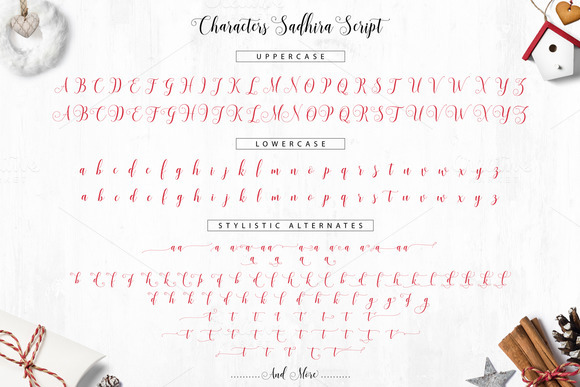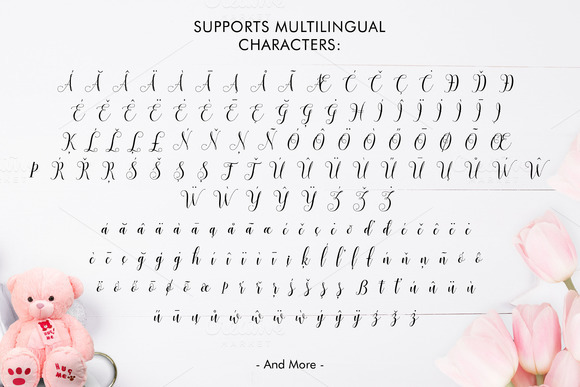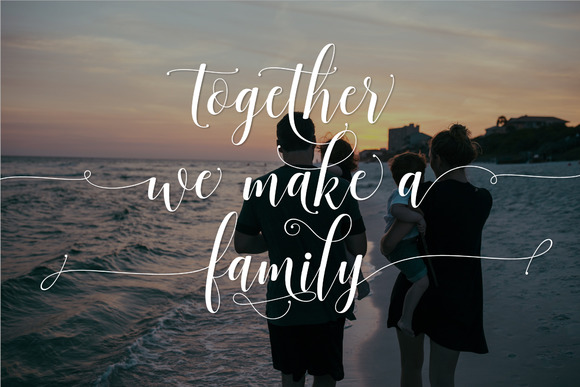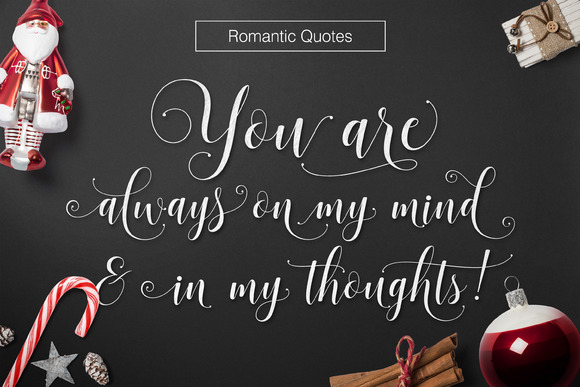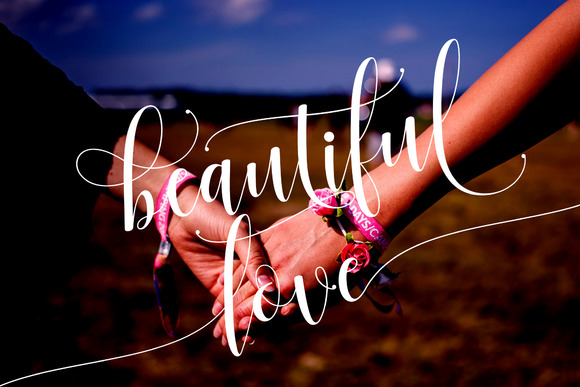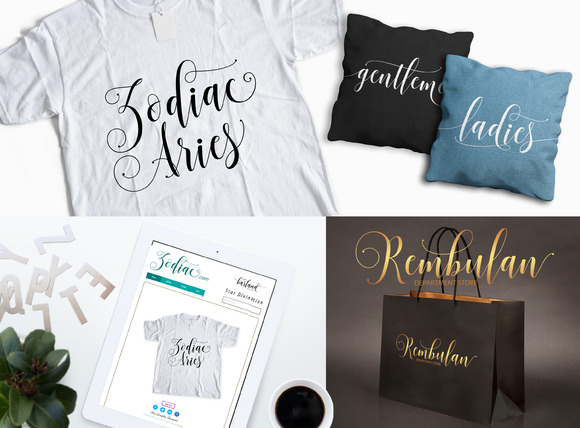
Introduction to Sadhira Script Font
Imagine you’re working on a creative project, pouring your heart and soul into it, and then you stumble upon the perfect font to bring it all together. For designers, this moment is pure magic. It’s the moment when all the hard work and hours of brainstorming pay off, and the design starts to come alive. And that’s exactly what the Sadhira Script Font offers – a chance to elevate your design to the next level.
As a valuable design resource, the Sadhira Script Font is a game-changer for any creative project. With its high quality and unique details, it’s perfect for adding a touch of elegance and sophistication to your work. Whether you’re working on a branding project, a wedding invitation, or a social media campaign, this font is sure to impress.
So, what makes the Sadhira Script Font so special? With almost 1000 unique glyphs and 7 alternative fonts to mix and match, the possibilities are endless. And with its PUA encoded feature, you can easily use it with a transparent background to add an extra layer of depth to your design. Best of all, it’s available for a free download, making it an accessible resource for designers of all levels.
Key Features of Sadhira Script Font
- High-quality, elegant script font perfect for creative projects and design resources.
- Includes a range of ligatures and swashes, adding a touch of sophistication to any text-based design.
- Designed to be highly versatile, making it suitable for a variety of design projects, from wedding invitations to branding materials.
Honest Review: Sadhira Script Font
As a designer, I’m always on the lookout for high-quality design resources to enhance my creative projects. Recently, I had the chance to work with the Sadhira Script Font, and I’m excited to share my honest review with you.
- Elegant and sophisticated feel that’s perfect for luxury branding and high-end projects.
- High-quality design that’s suitable for both digital and print applications.
- Limited font styles and variations available, which may not be suitable for projects requiring a wide range of options.
- Not ideal for projects requiring a bold or sans-serif font style.
Overall, I’m impressed with the Sadhira Script Font’s elegant design and high-quality feel. While it may have some limitations, it’s an excellent choice for designers looking for a sophisticated script font for their creative projects.
How to Use Sadhira Script Font
The Sadhira Script Font is a high-quality design resource ideal for various creative projects. With its elegant and sophisticated style, this font is perfect for adding a touch of sophistication to your designs.
The Sadhira Script Font is ideal for various design projects, including:
- Brand logos and identity design.
- Marketing materials and social media graphics.